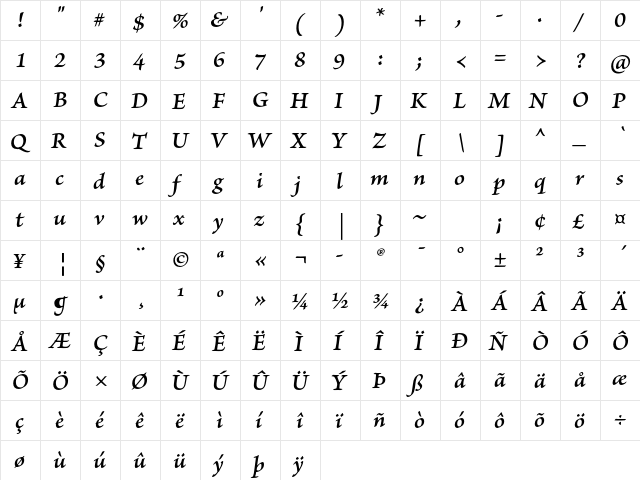
Brioso Pro Semibold Italic Caption Font Preview
| Designer | Robert Slimbach |
Design Context for Brioso Pro Typeface
Brioso Pro takes a measured approach to typography — its balanced proportions and neutral character make it a reliable workhorse for both digital and print work. Its italic angle brings a sense of urgency and motion to the letterforms. The heavy weight commands attention and anchors typographic hierarchies.
Pro Tip: Try Brioso Pro for annotation and caption copy alongside an upright companion — the contrast in angle creates a dynamic but ordered typographic system.